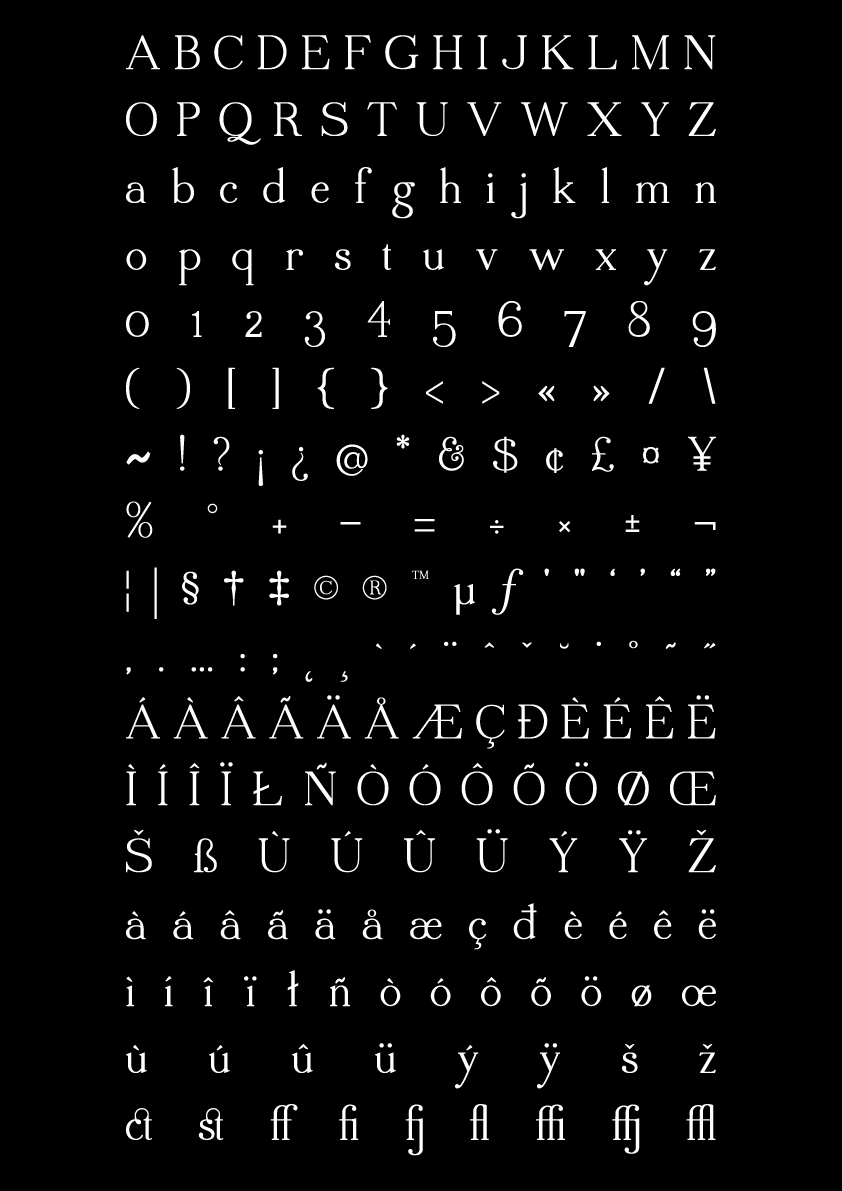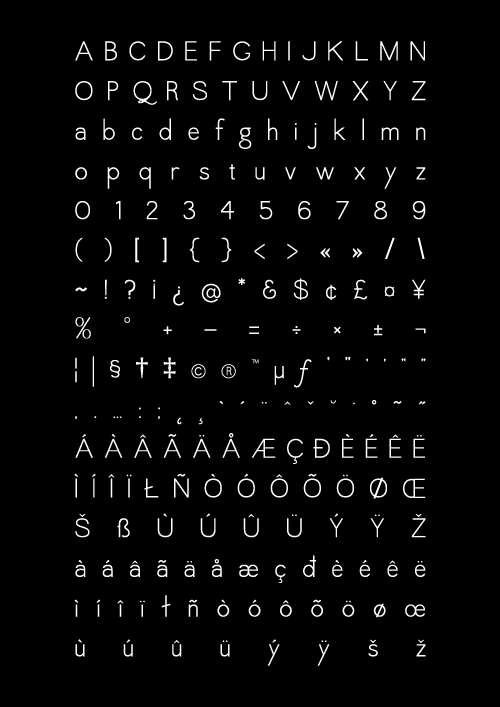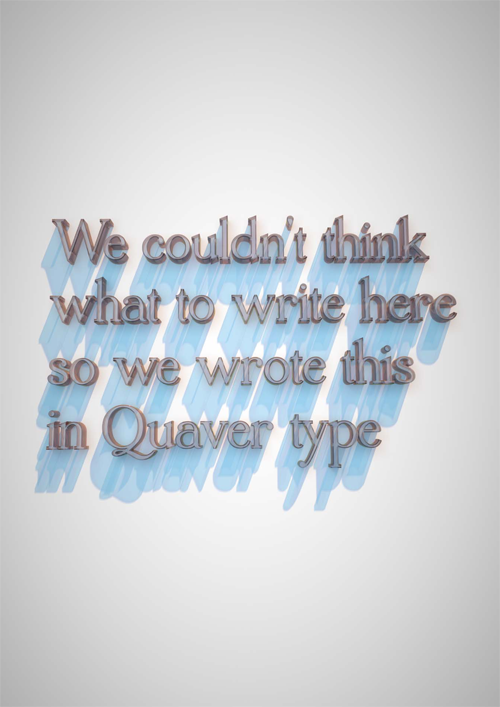
Quaver Sans/Serif
An Experimental Font Family
Two fonts with a complimentary feel. One serif. One sans serif. Both contain the full character set plus ligatures. 400+ glyphs in total.
Serif & Sans Serif